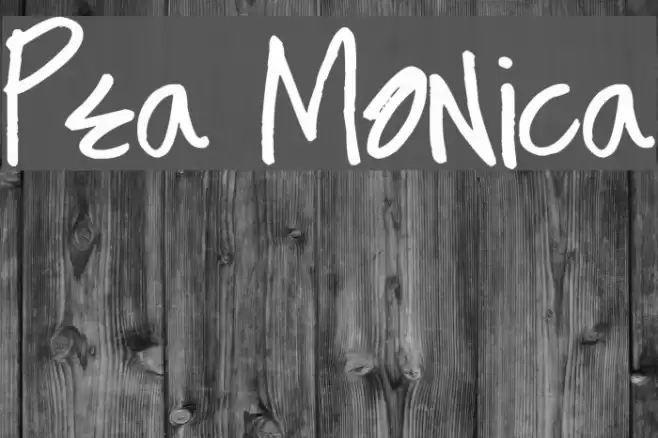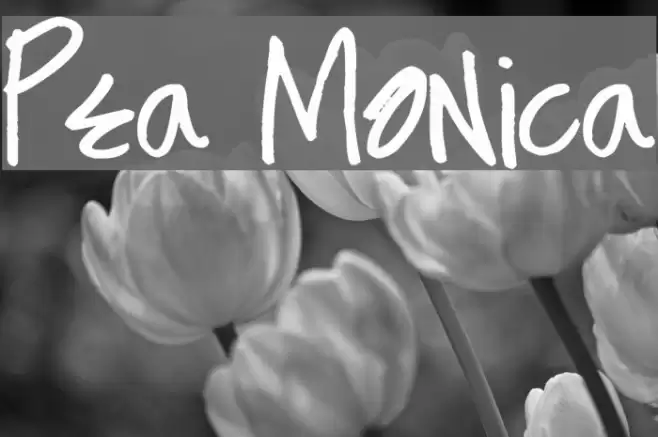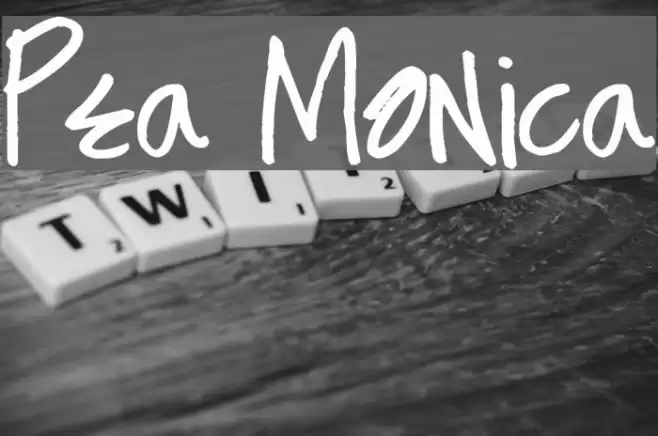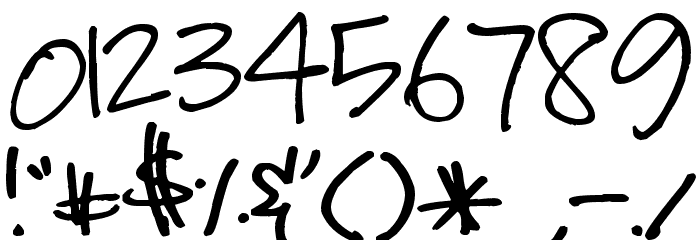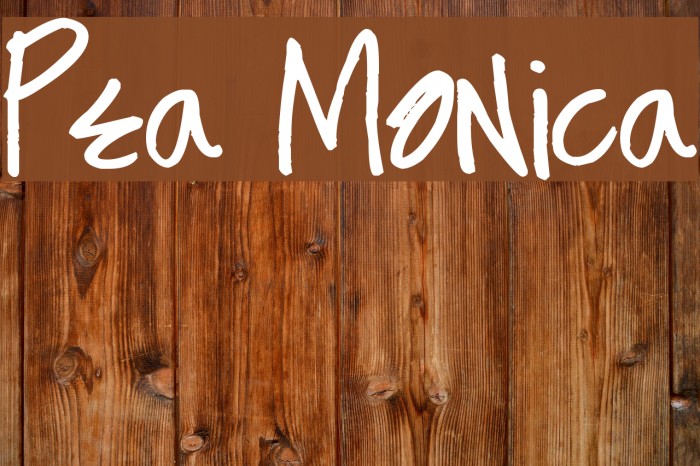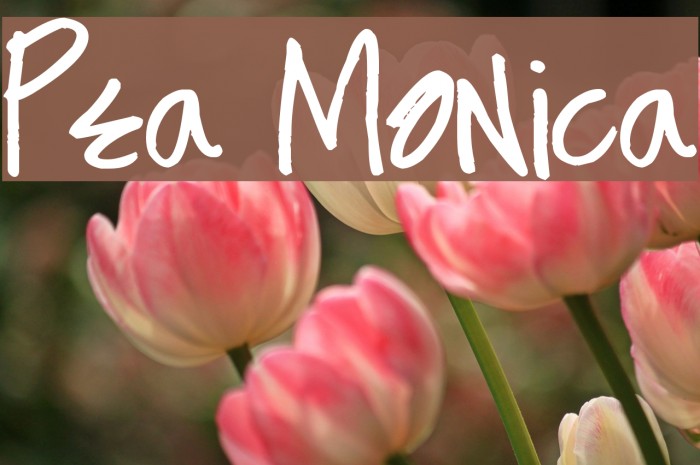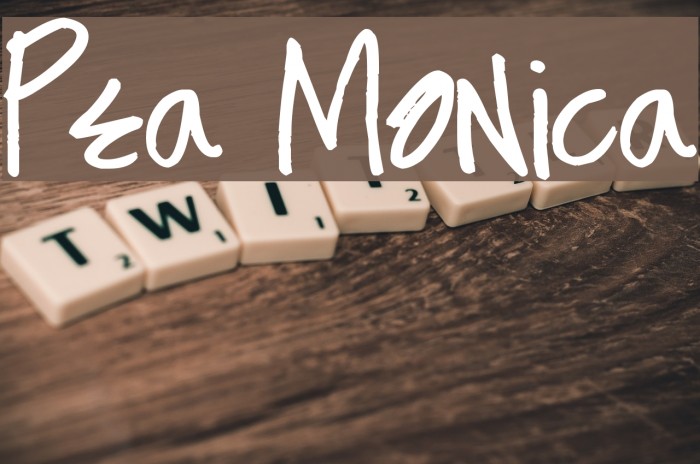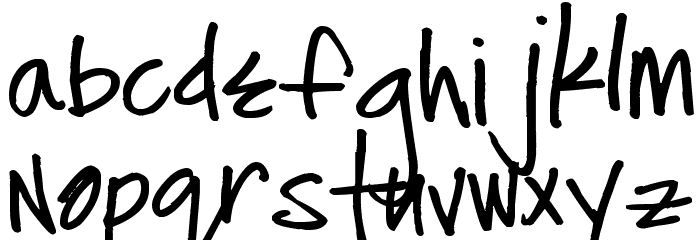
Pea Monica Font
Pea Monica Description
This font features a playful and casual handwritten style, characterized by its irregular strokes and informal appearance. The letters are slightly slanted, giving a dynamic and lively feel. The uppercase and lowercase letters maintain a consistent flow, while the numerals and special characters complement the overall aesthetic. The strokes vary in thickness, adding a touch of spontaneity and authenticity. This font is ideal for projects that require a personal and approachable touch, such as greeting cards, invitations, or social media graphics.
A playful, casual handwritten font with irregular strokes from Uncategorized fonts.
- Proposed Projects: Greeting cards, invitations, social media graphics, personal branding.
- Overall Style: Casual, Playful
- Use Case: Headlines, Informal text, Personal projects